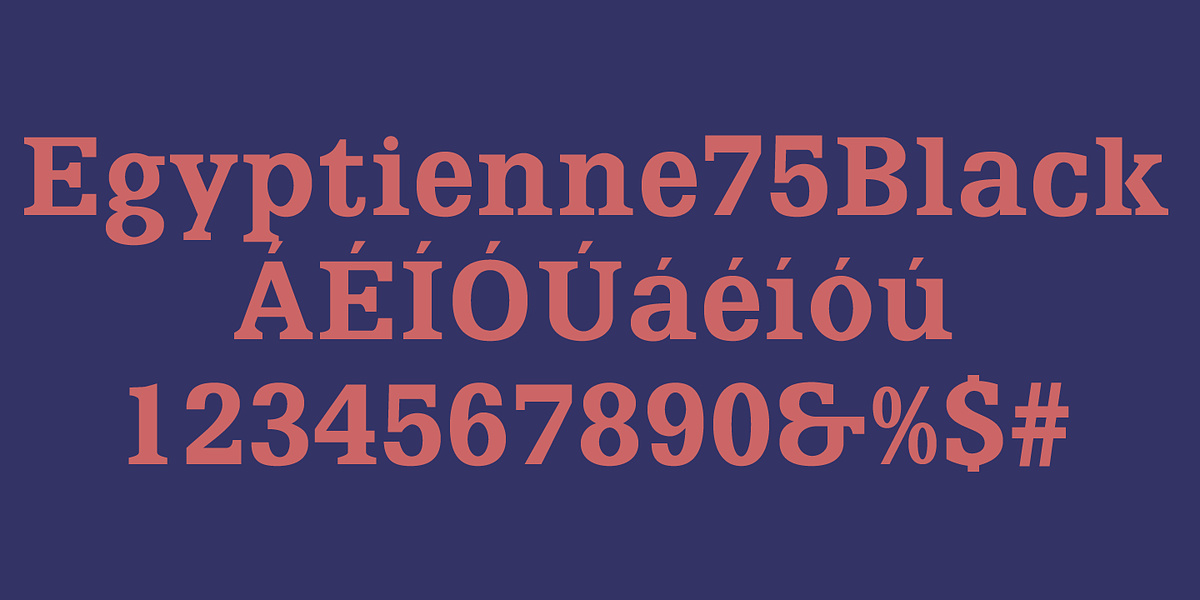
Make a bold typographic statement with Egyptienne75Black Font Free Download. This strong slab serif typeface delivers power and authority, making it ideal for headlines, editorial design, branding, posters, and packaging that demand attention. With its heavy weight and confident structure, Egyptienne75Black adds a sense of impact and professionalism to your layouts.
Its thick, block-like serifs and uniform letterforms offer excellent readability while maintaining a distinctive, classic look. The font includes uppercase and lowercase characters, numerals, and punctuation—perfect for exploring bold typographic hierarchies during your test phase.
Whether you're designing for print or digital, Egyptienne75Black brings both heritage and strength to the table. For any commercial use, make sure to purchase the appropriate license. Download Egyptienne75Black Font Free Download today and take your designs to the next level with solid, timeless style.